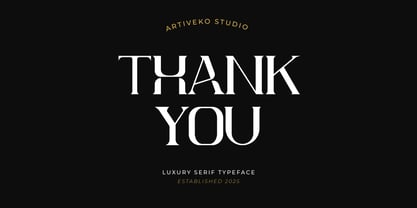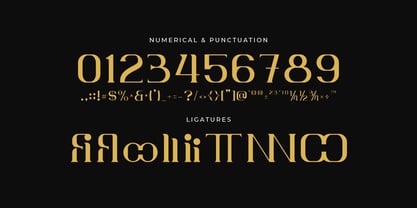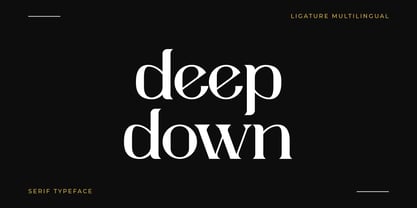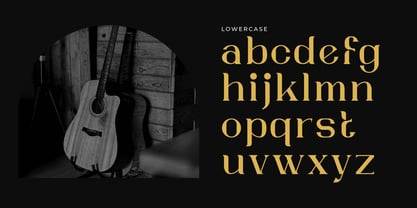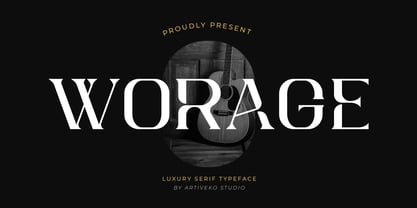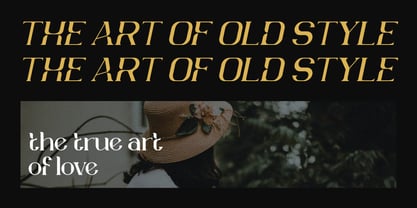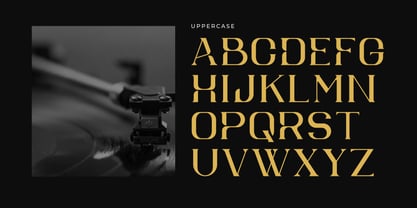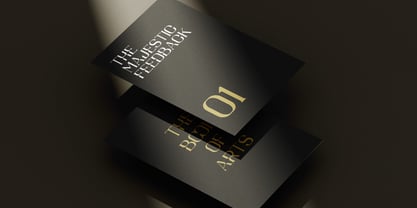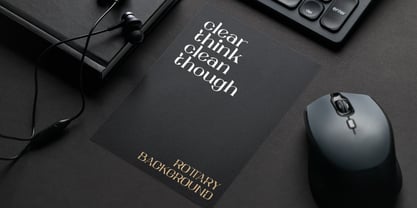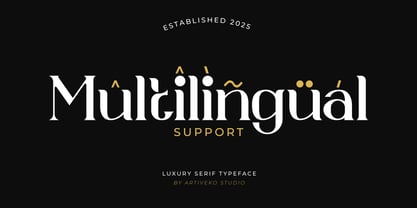
Worage
by Artiveko
The Worage Font Family was designed by Iwan Alwan and published by Artiveko. Worage contains 2 styles and family package options. More about this family
Worage is a luxury serif font that exudes elegance, power, and sophistication. Crafted with precision and a deep appreciation for classical beauty, Worage blends traditional serif details with a modern edge. Its high-contrast strokes, elegant curves, and distinctive terminals create a refined aesthetic perfect for premium branding, editorial designs, fashion lookbooks, and upscale packaging.
Designed to leave a lasting impression, Worage offers a complete set of uppercase and lowercase letters, multilingual support, and thoughtfully designed ligatures and alternates. Each character has been carefully shaped to convey prestige and confidence, making it ideal for logos, invitations, or any project where luxury is the goal. Whether you’re designing for a luxury fashion house, a fine jewelry brand, or a boutique hotel, Worage adds a touch of timeless sophistication that elevates your message and captivates your audience.
Designers: Iwan Alwan
Foundry: Artiveko
Artiveko is a font design team based in Indonesia, comprised of several talented font designers who commenced their careers in the font design industry in 2020. With a dedicated focus on crafting fonts, the team members bring their collective expertise and passion to every project they undertake. Situated in Indonesia, Artiveko draws inspiration from the vibrant cultural landscape of the region, infusing their creations with unique flavors and aesthetics.The team's font collection encompasses a diverse range of styles, including serif, sans serif, handwritten, and script typefaces. Each typeface is meticulously crafted to meet the demands of modern design while offering versatility and functionality across various applications. Whether it's the classic elegance of serif fonts, the contemporary appeal of sans serif designs, the personal touch of handwritten scripts, or the expressive flourishes of script fonts, Artiveko ensures that every font reflects their dedication to quality and innovation.Artiveko's fonts have garnered recognition and acclaim, with their works being featured on prominent social media platforms like Creative Market. Through these platforms, the team has been able to connect with a global audience of designers and typographers, further amplifying their reach and influence in the industry. Their fonts are celebrated for their impeccable craftsmanship, attention to detail, and ability to elevate design projects with style and sophistication.As Artiveko continues to evolve and expand its font collection, the team remains committed to pushing the boundaries of typography and setting new standards of excellence. With a relentless focus on creativity, innovation, and collaboration, Artiveko strives to inspire and empower designers around the world with their distinctive and versatile font designs.